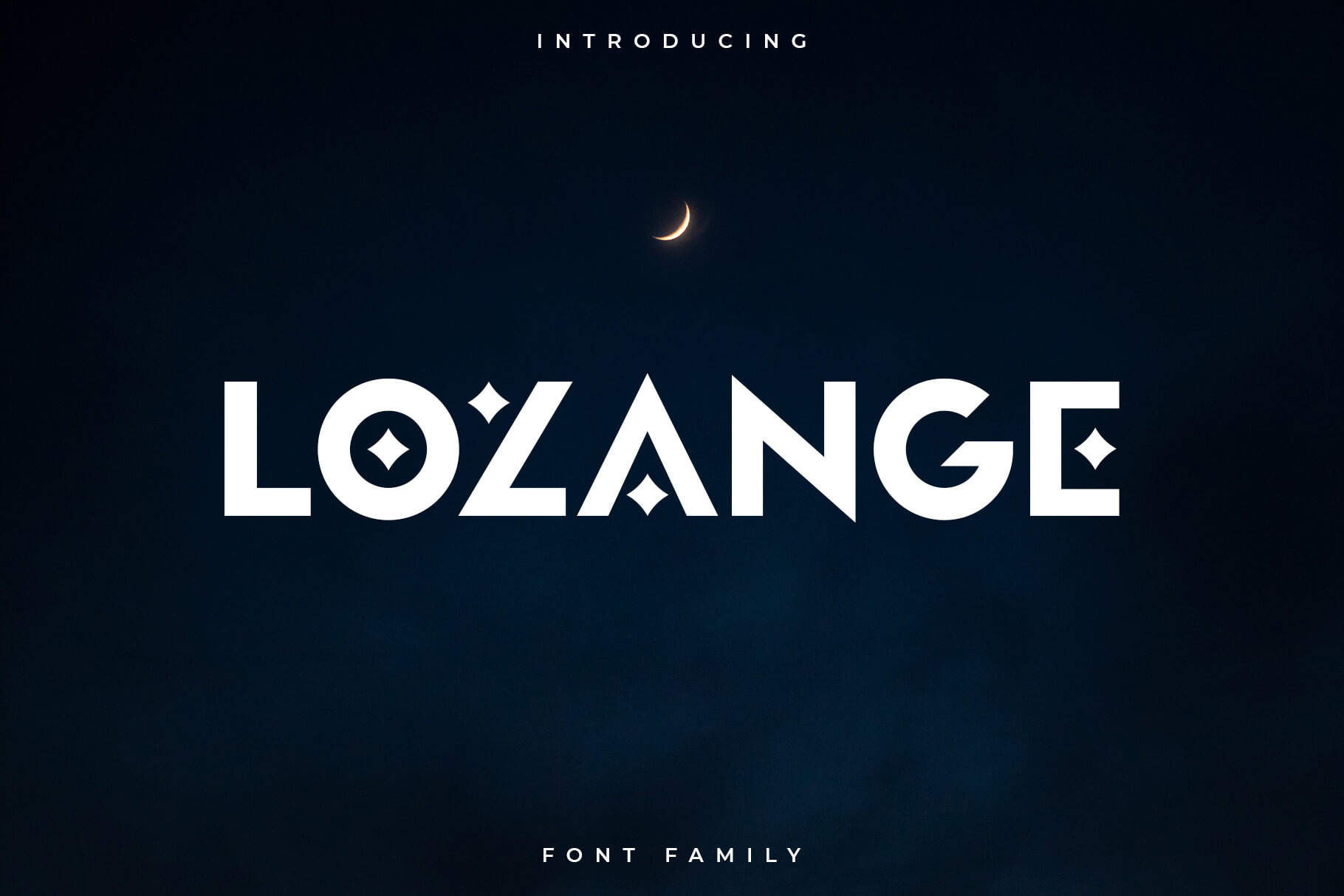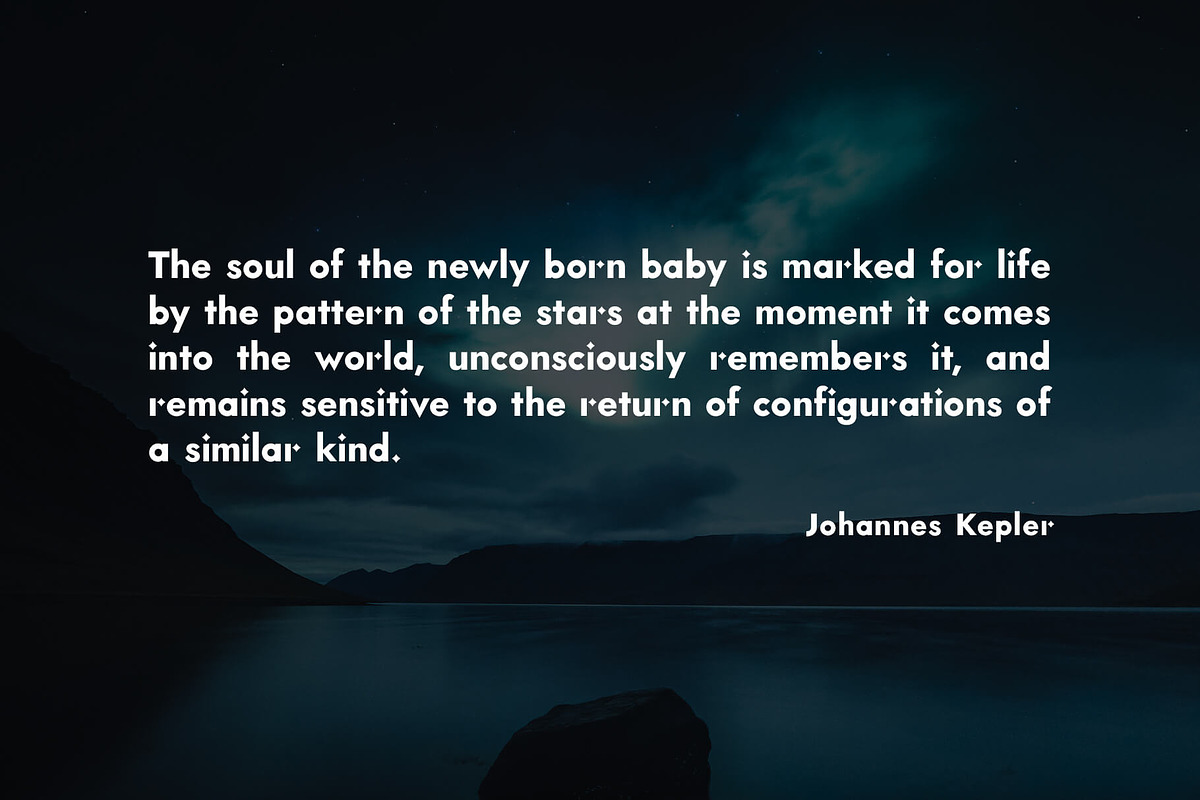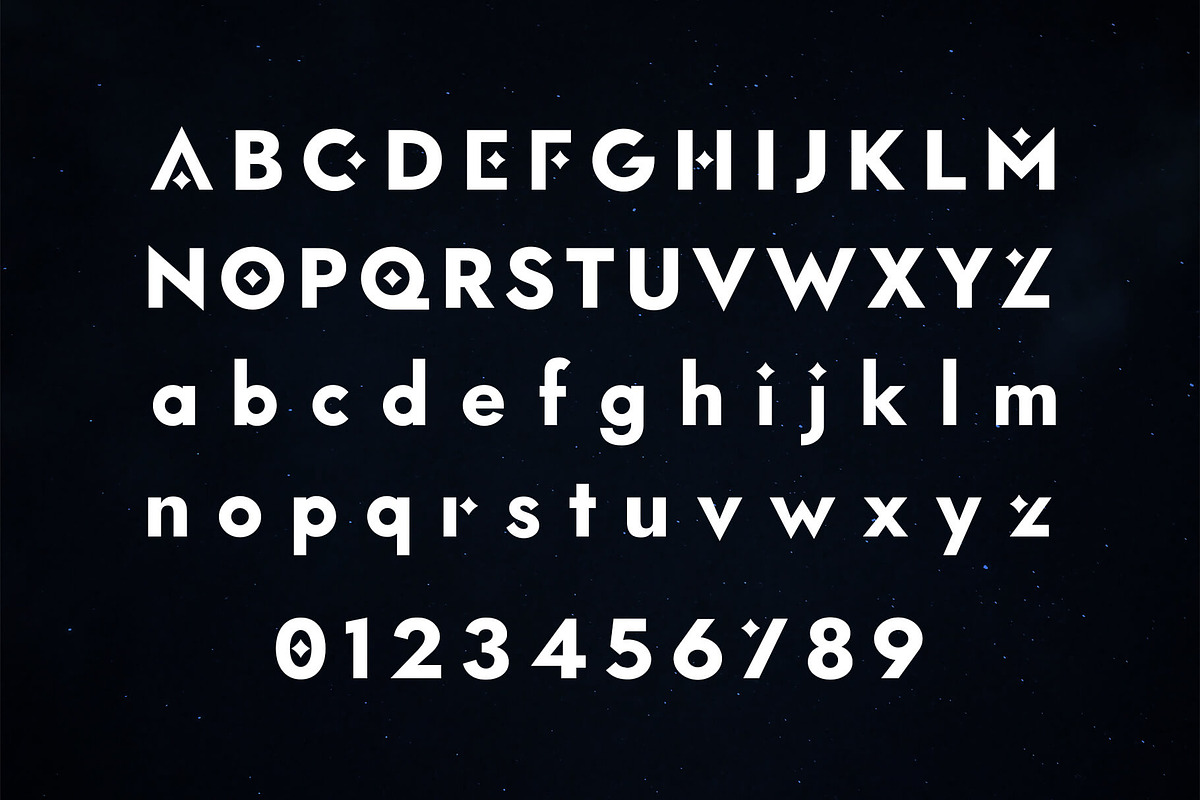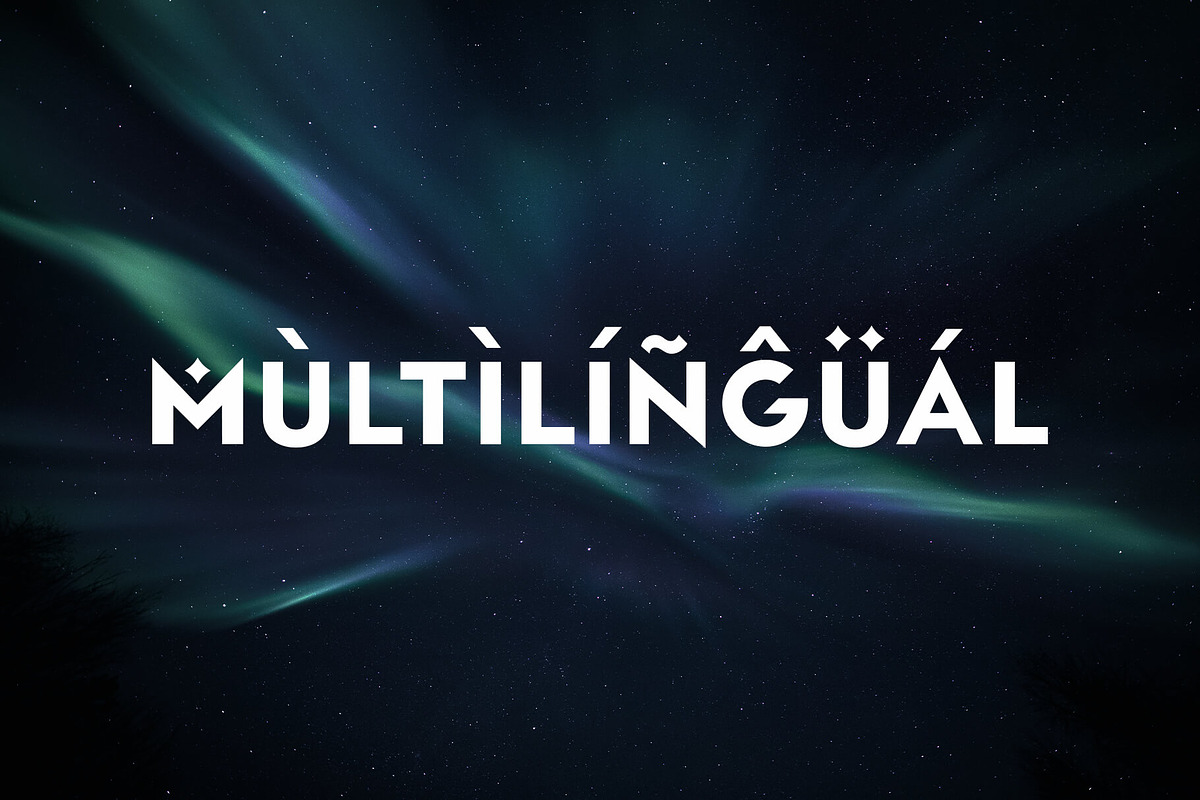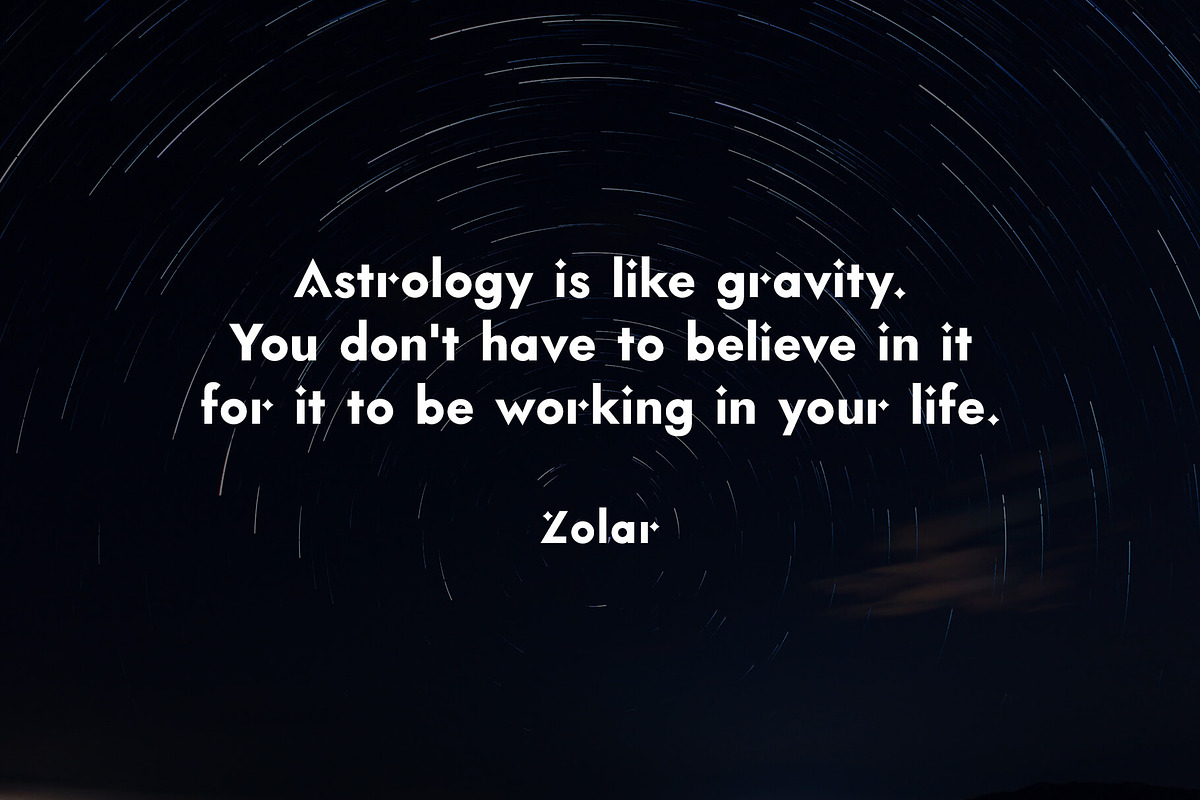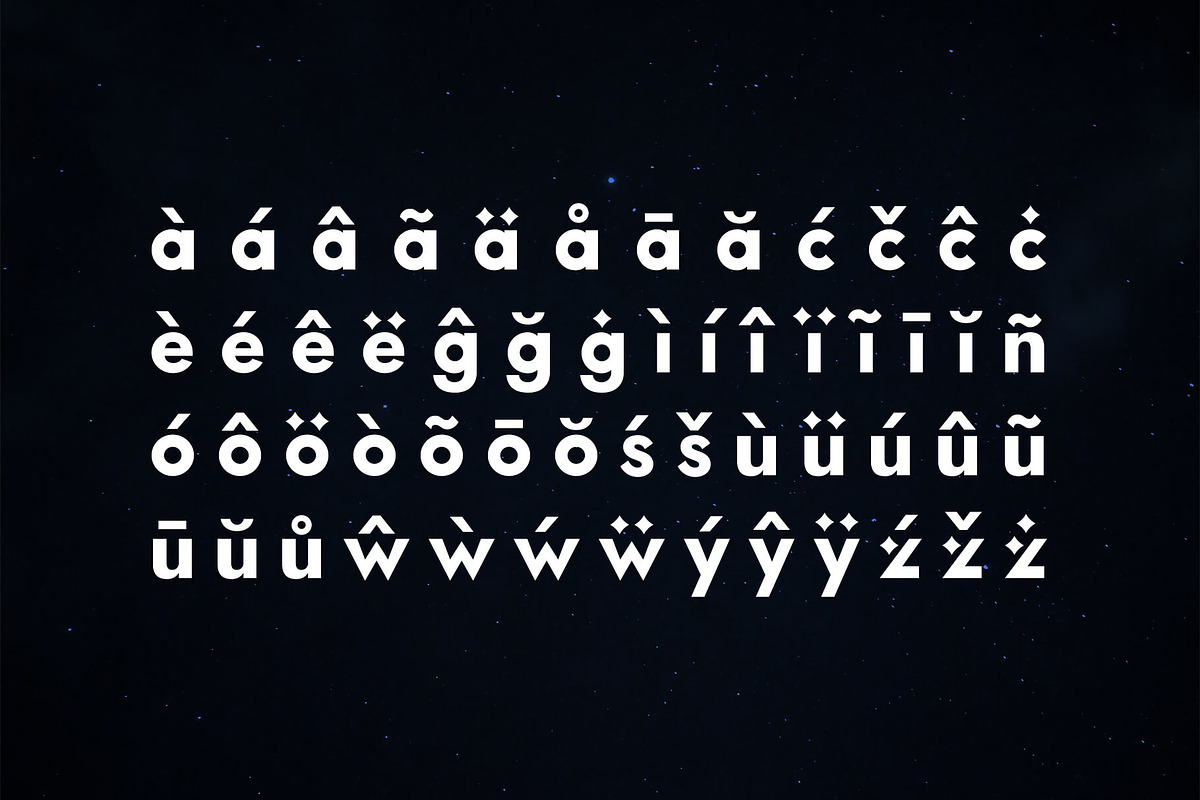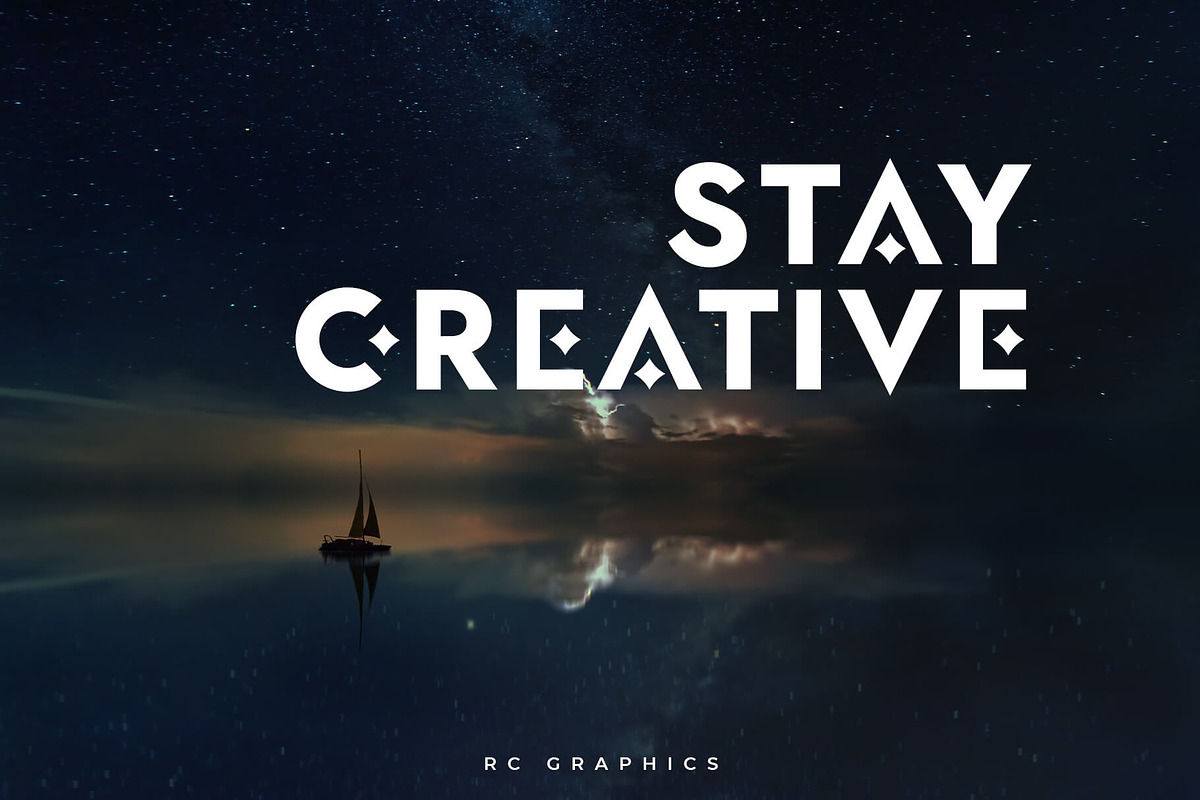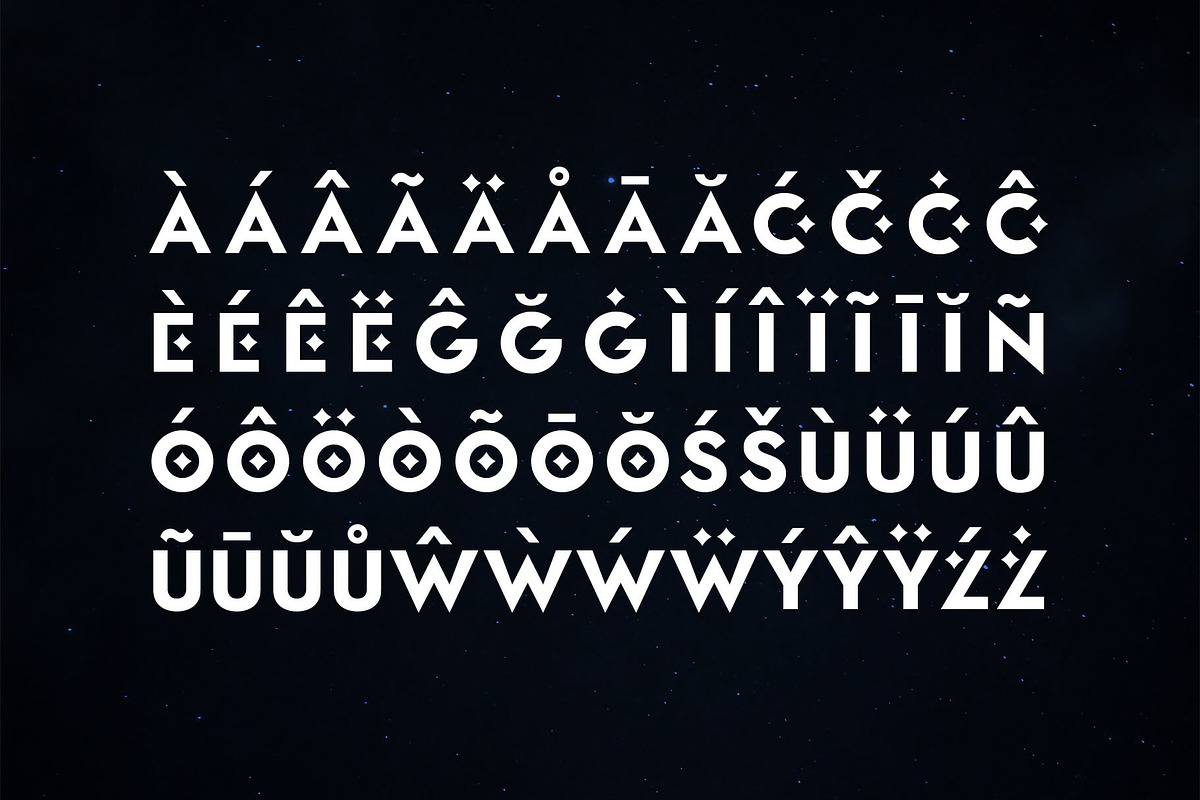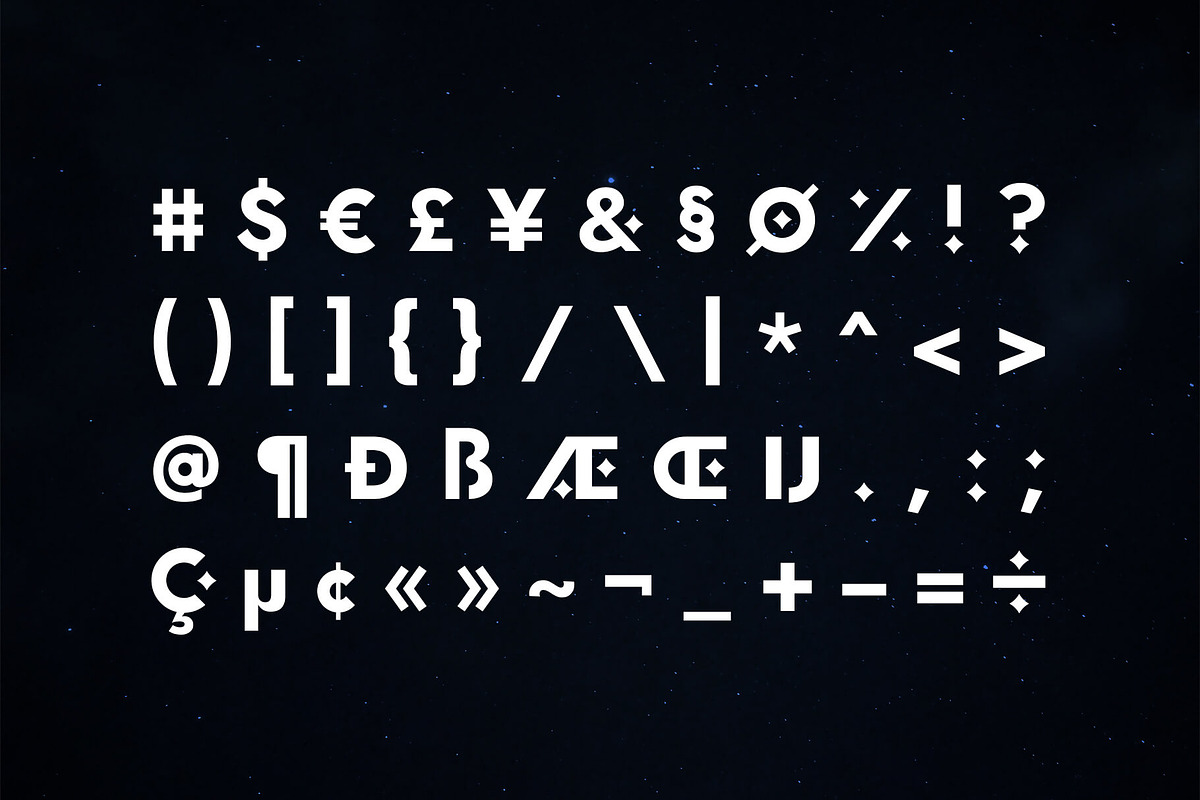
Lozange Font Family – Sans Serif
Lozange is a Bold Minimalist Elegant sans serif font. It’s a very versatile font that works great in large and small sizes. Lozange is perfect for branding projects, Logo design, Clothing Branding, product packaging, magazine headers, or simply as a stylish text overlay to any background image.
- Uppercase letters
- Lowercase letters
- Multilingual (Foreign language characters)